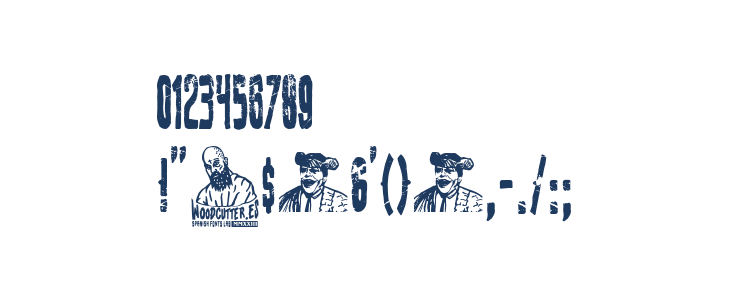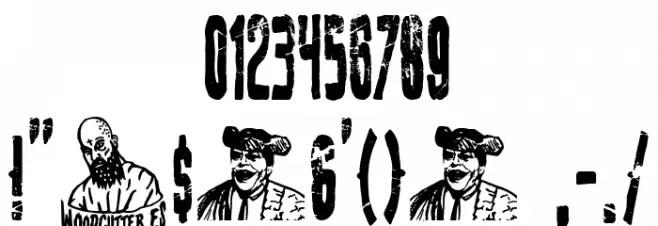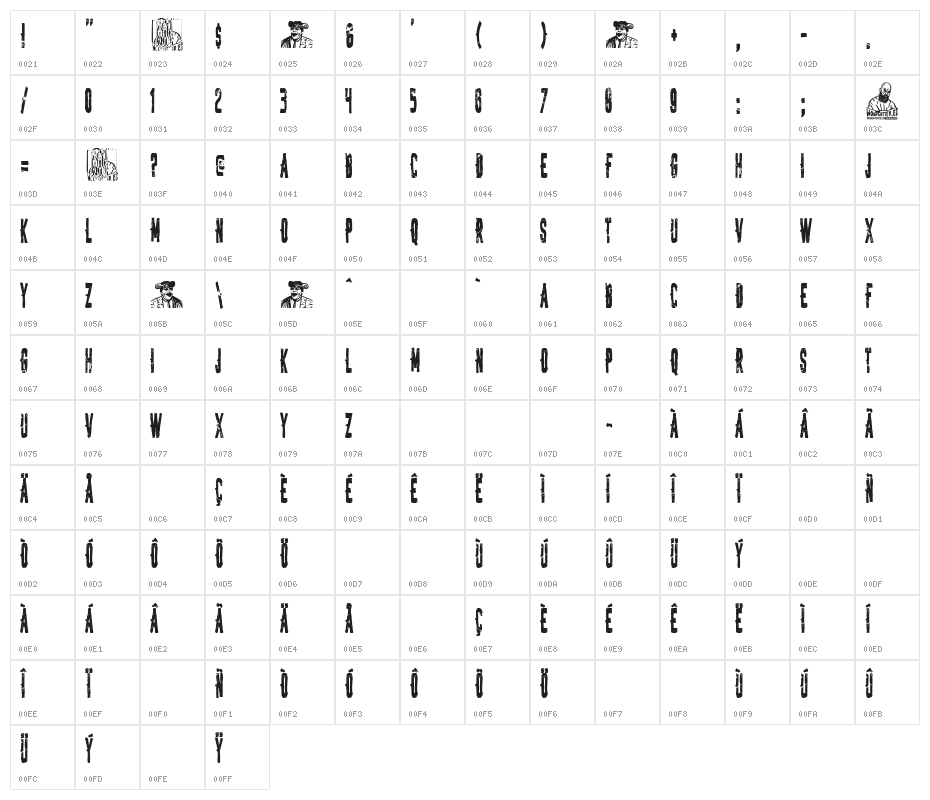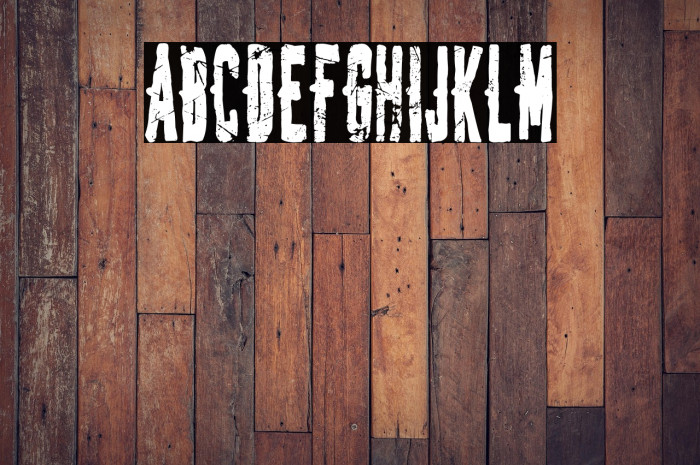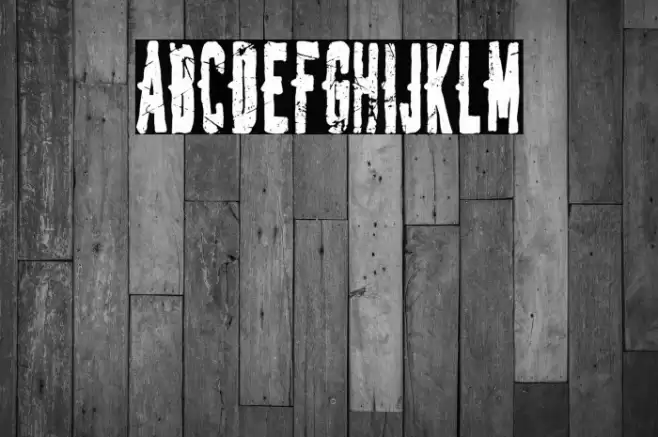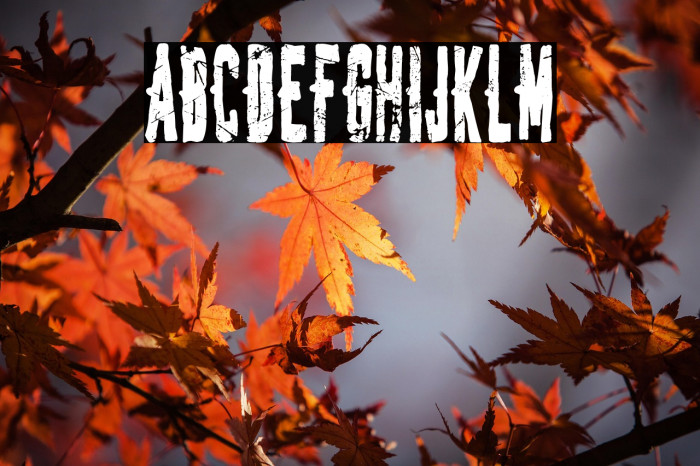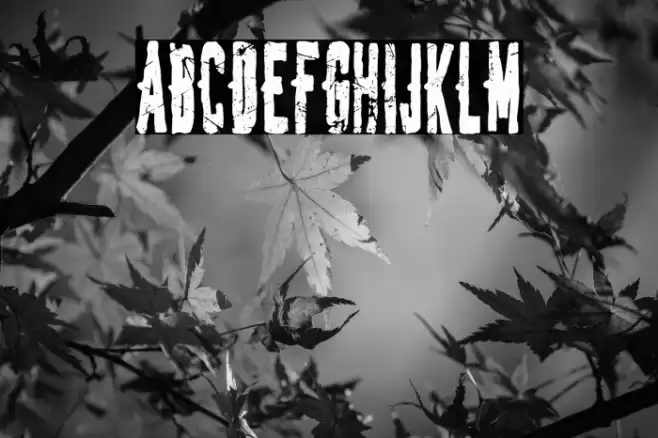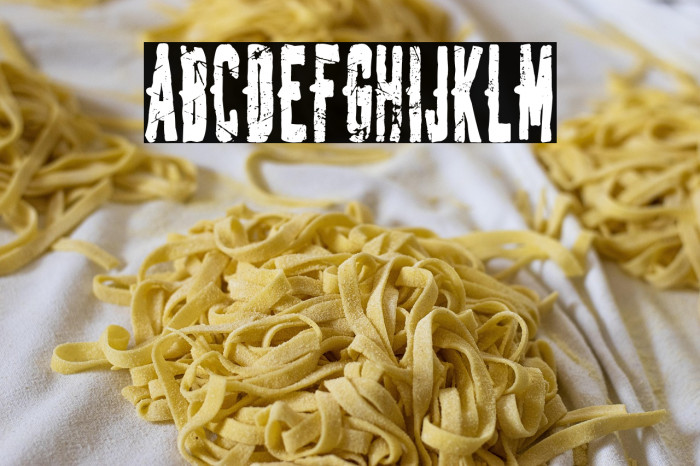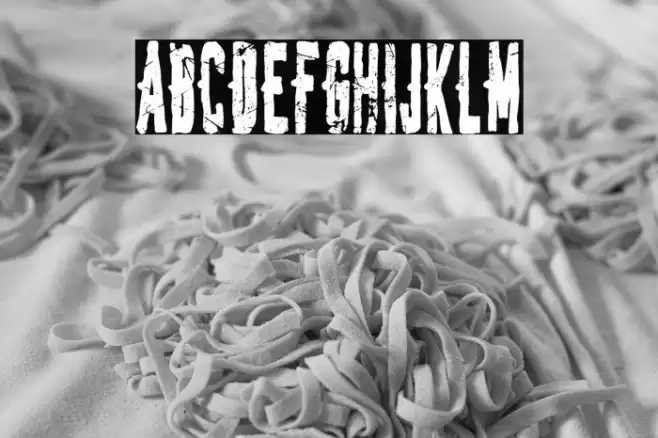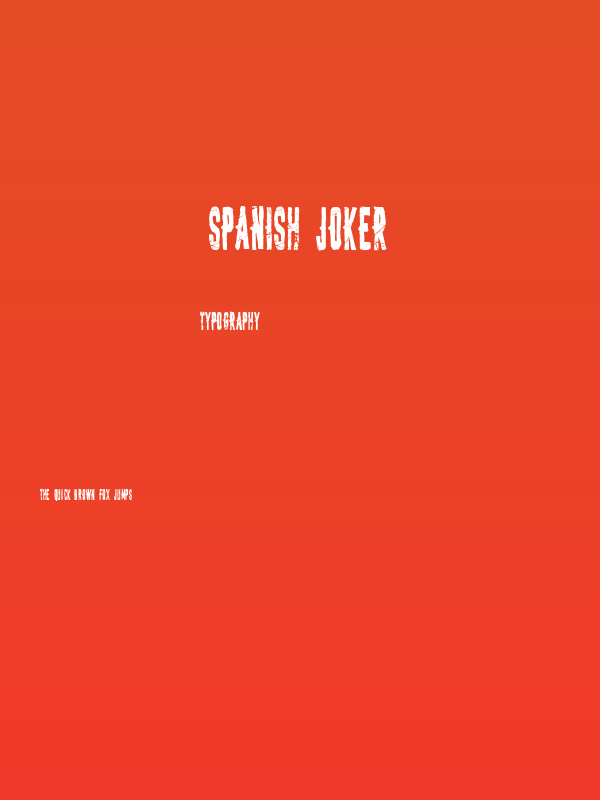
Spanish Joker Font
Spanish Joker Description
This font features a distressed, grungy style with a bold and rugged appearance. The characters are heavily textured, giving them a worn and weathered look. Each letter is unique, with irregular edges and a slightly uneven baseline, contributing to its raw and edgy aesthetic. The uppercase and lowercase letters maintain a consistent style, while the numbers and special characters are equally bold and textured. This font's distinctive appearance makes it suitable for projects that require a strong, impactful visual statement.
Overall StyleGrunge, Distressed
Proposed ProjectsIdeal for posters, album covers, branding for edgy products, or any design needing a bold, gritty impact.